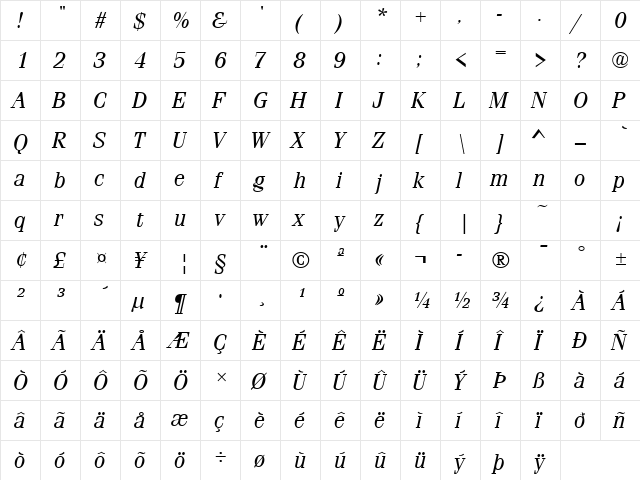
Firenze Italic Font Preview
Firenze Italic
Design Context for Firenze Typeface
Firenze is a composed and adaptable typeface that performs quietly and consistently across a wide range of design contexts. The dynamic lean of this cut emphasises speed and emphasis in any layout.
Pro Tip: Try Firenze for annotation and caption copy alongside an upright companion — the contrast in angle creates a dynamic but ordered typographic system.